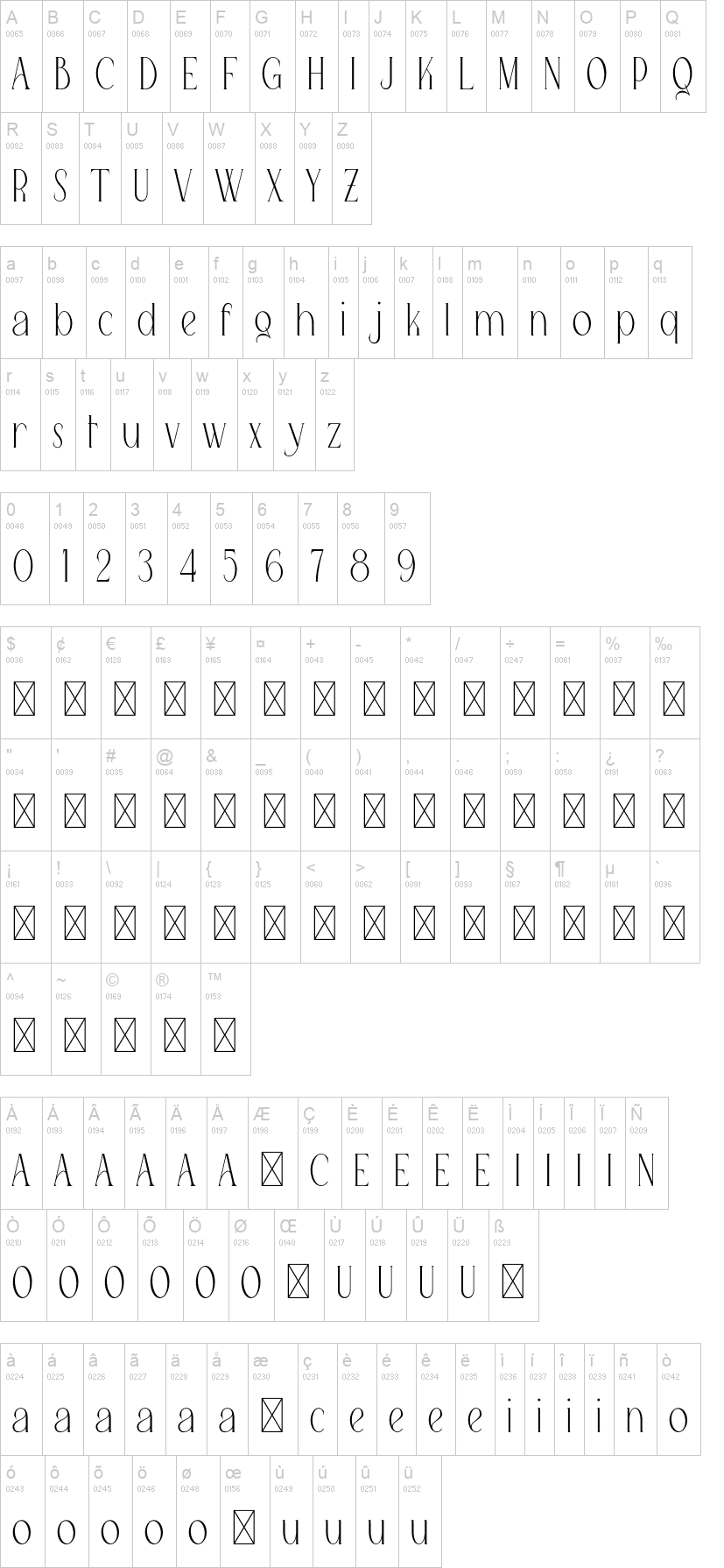
Discover the Queen Serif family, a FREE stylish serif font designed to give your projects an elegant look! With its modern design and vintage flair, this font is perfect for your next project. Get your FREE download today!
- 5 Weights
- 2 Styles (Regular and Italic)
- Basic Latin A-Z and a-z
- Numerals & Punctuation
- Stylistic Ligatures and Alternate glyps
- Multilingual Support for � � � � � � �